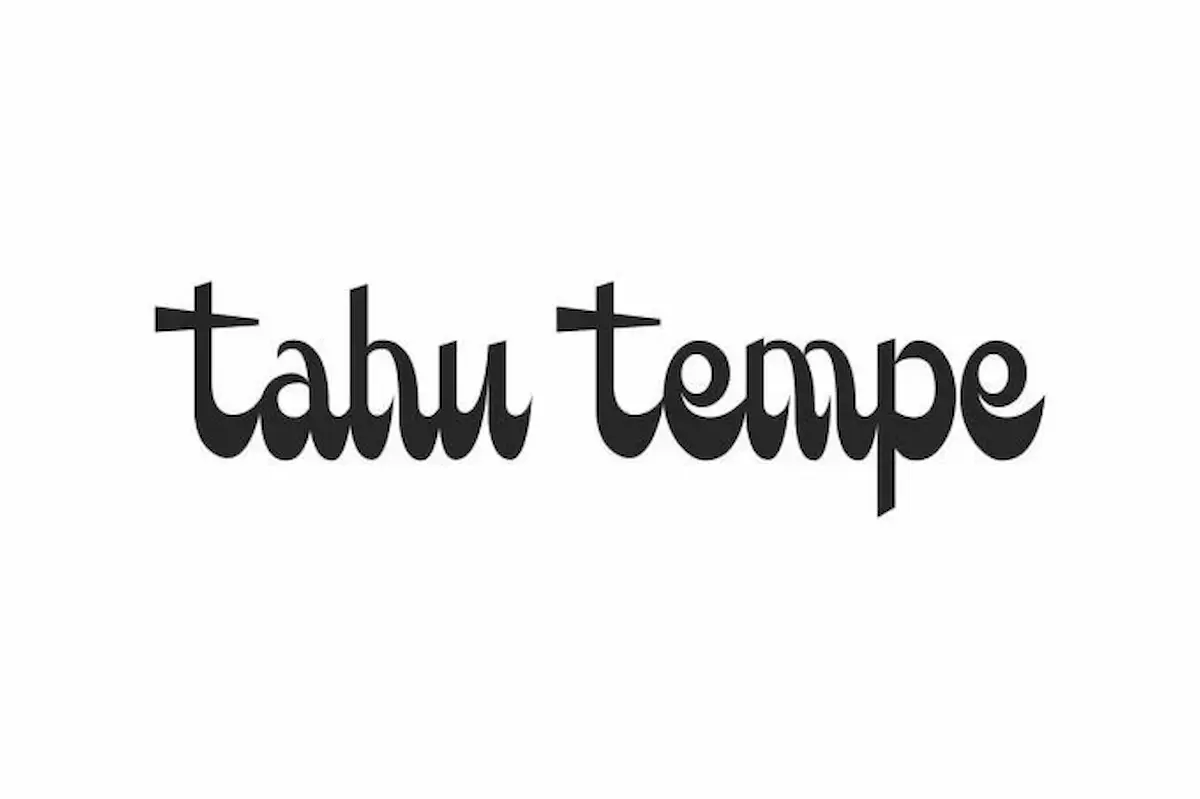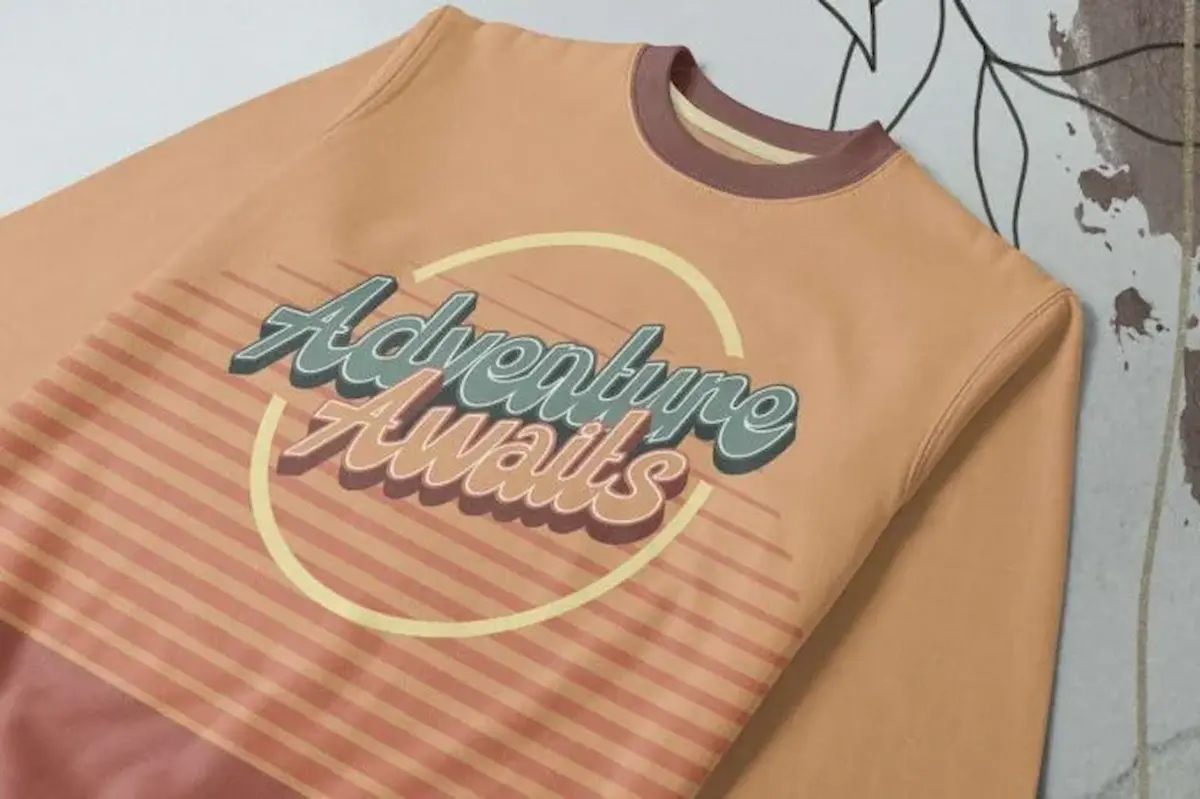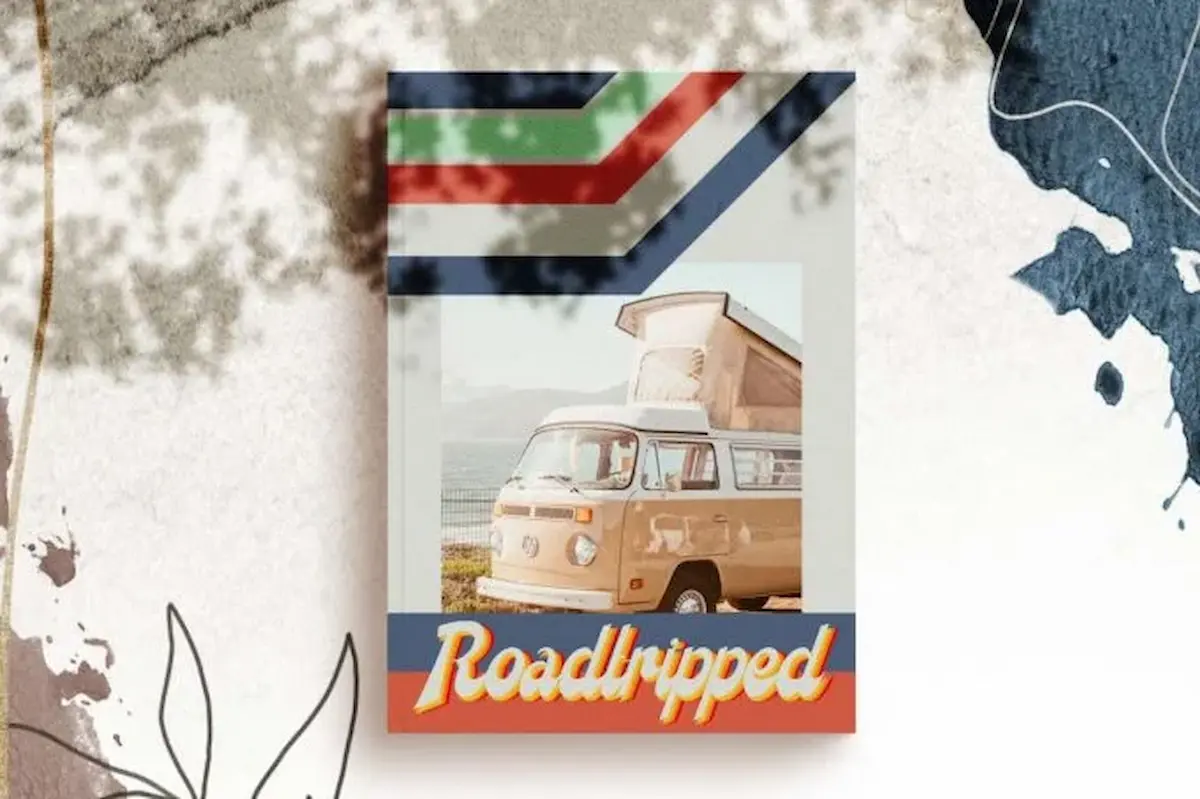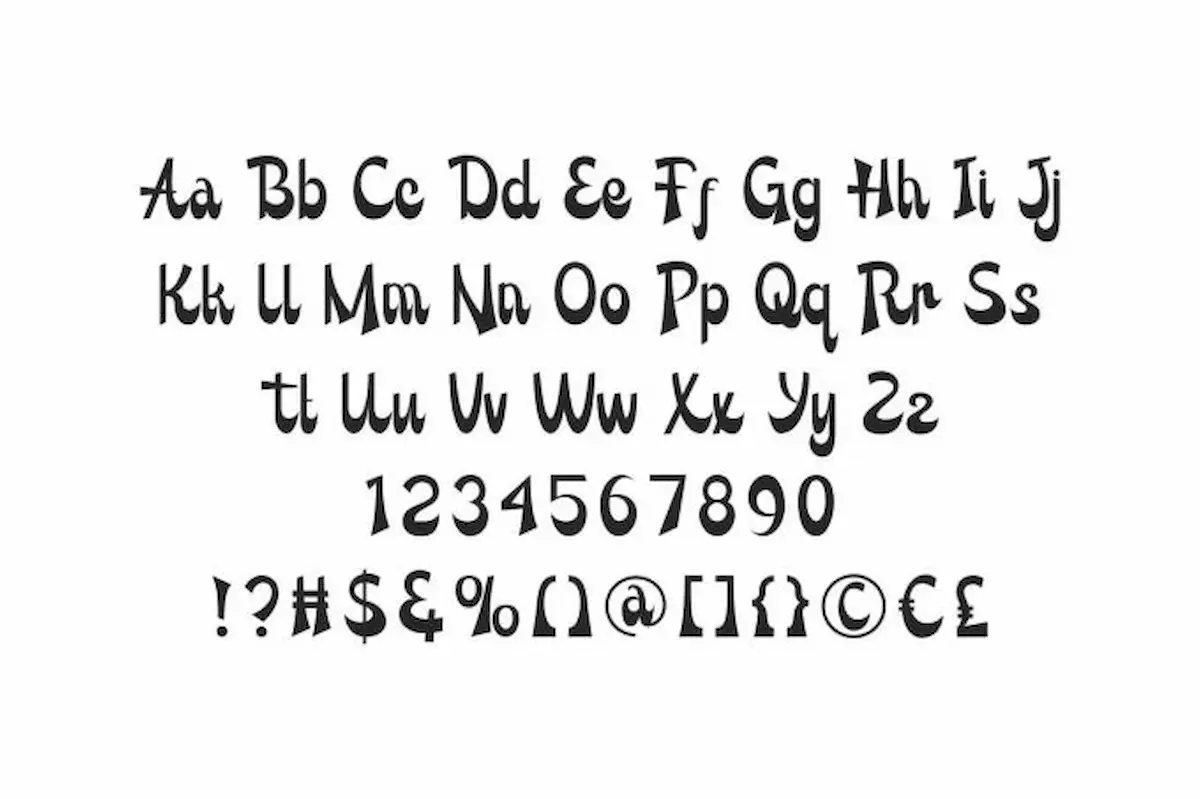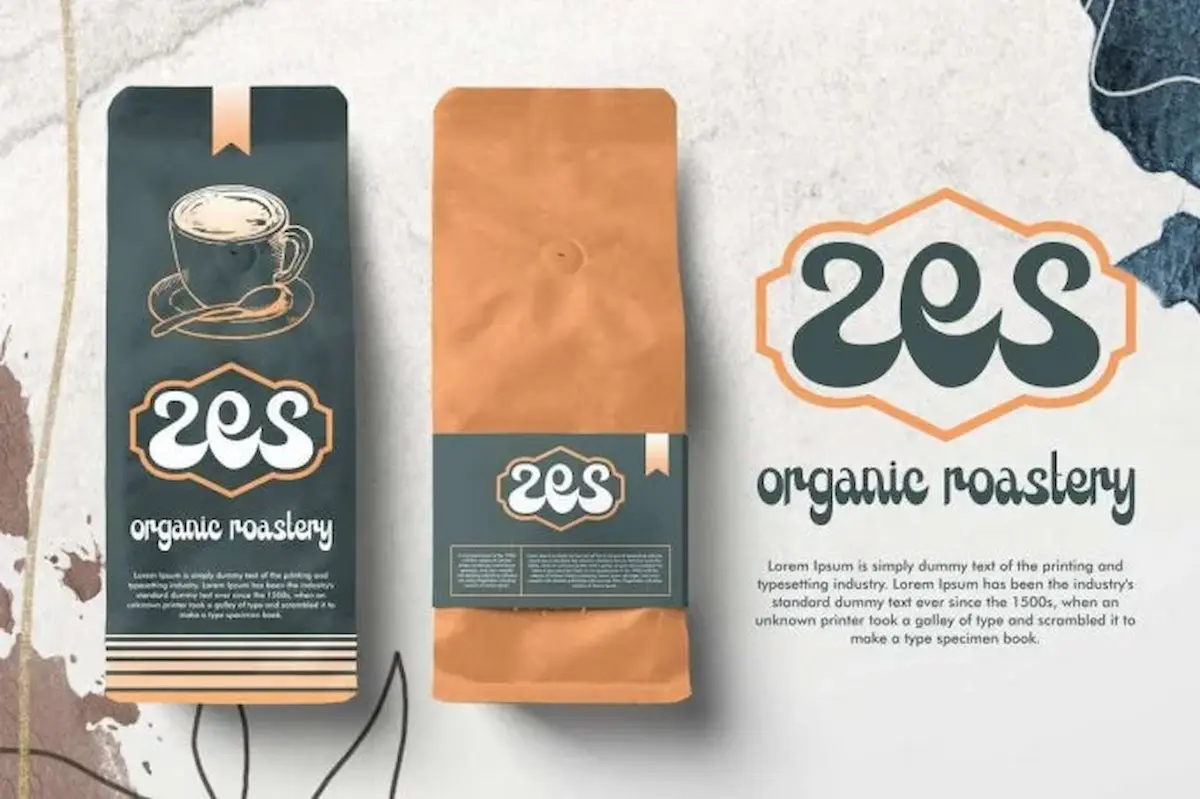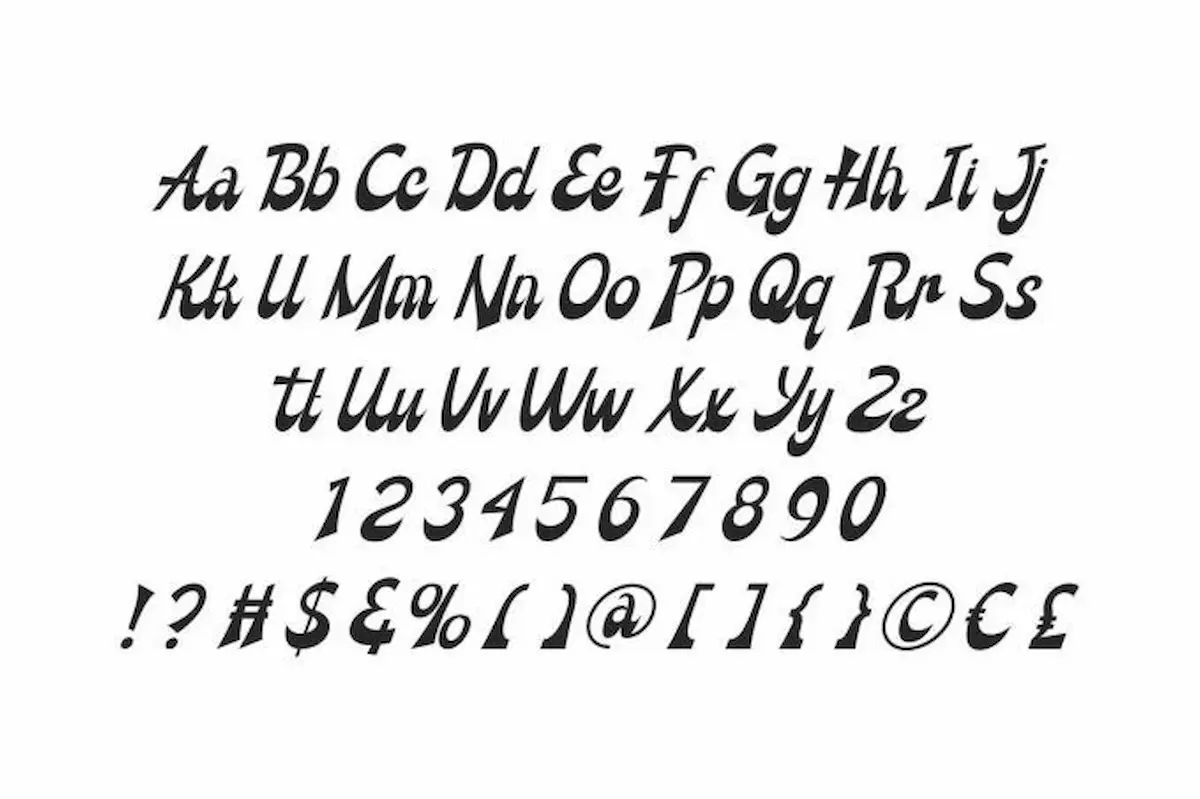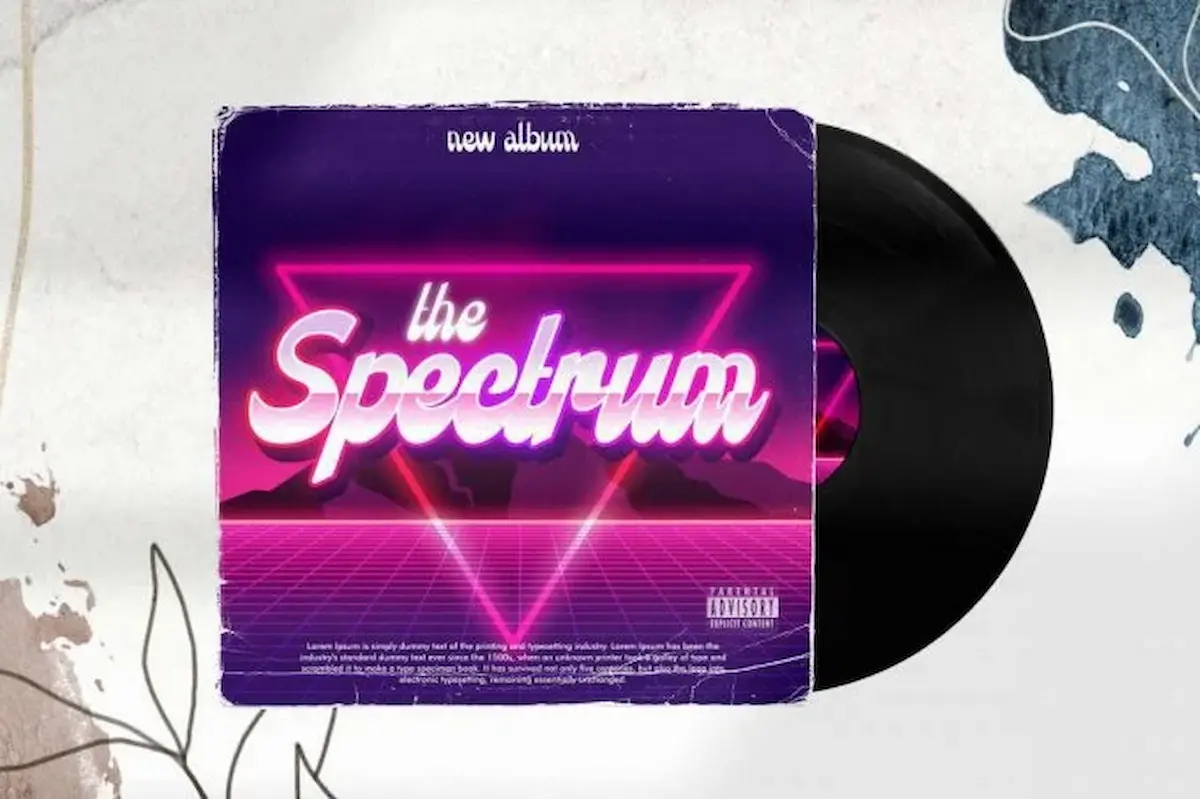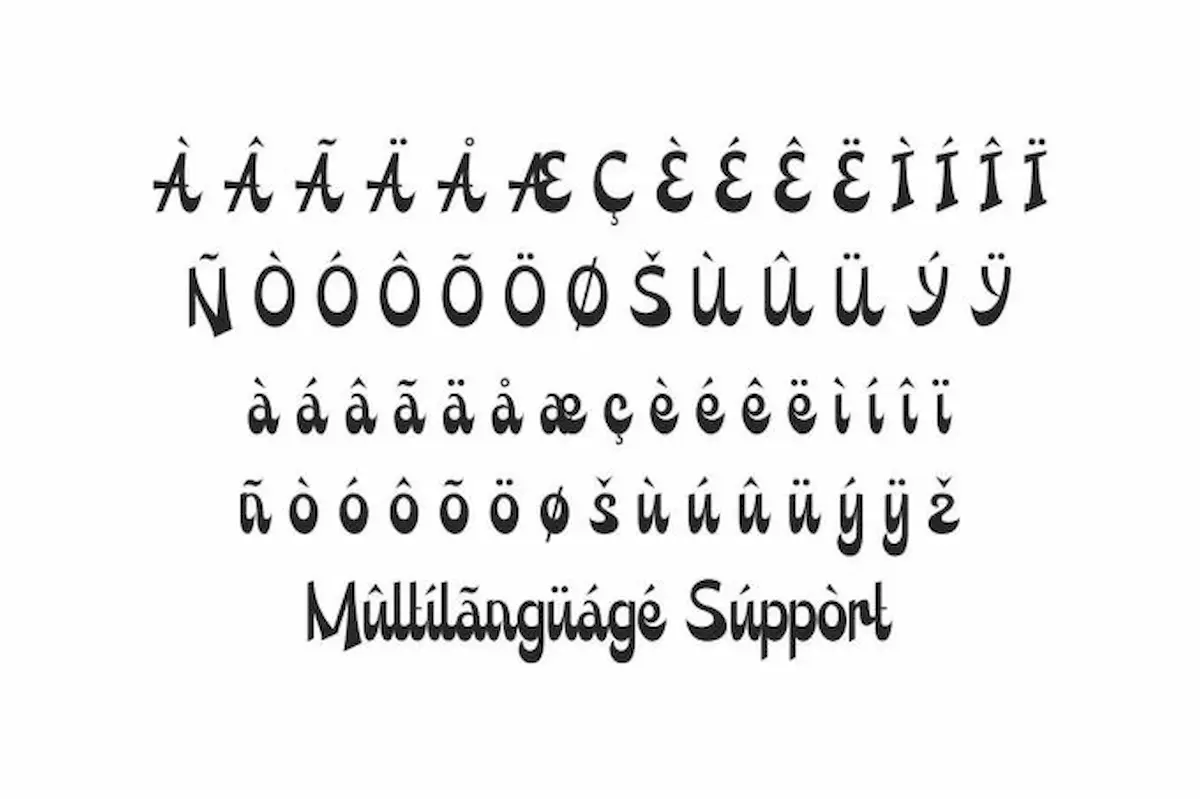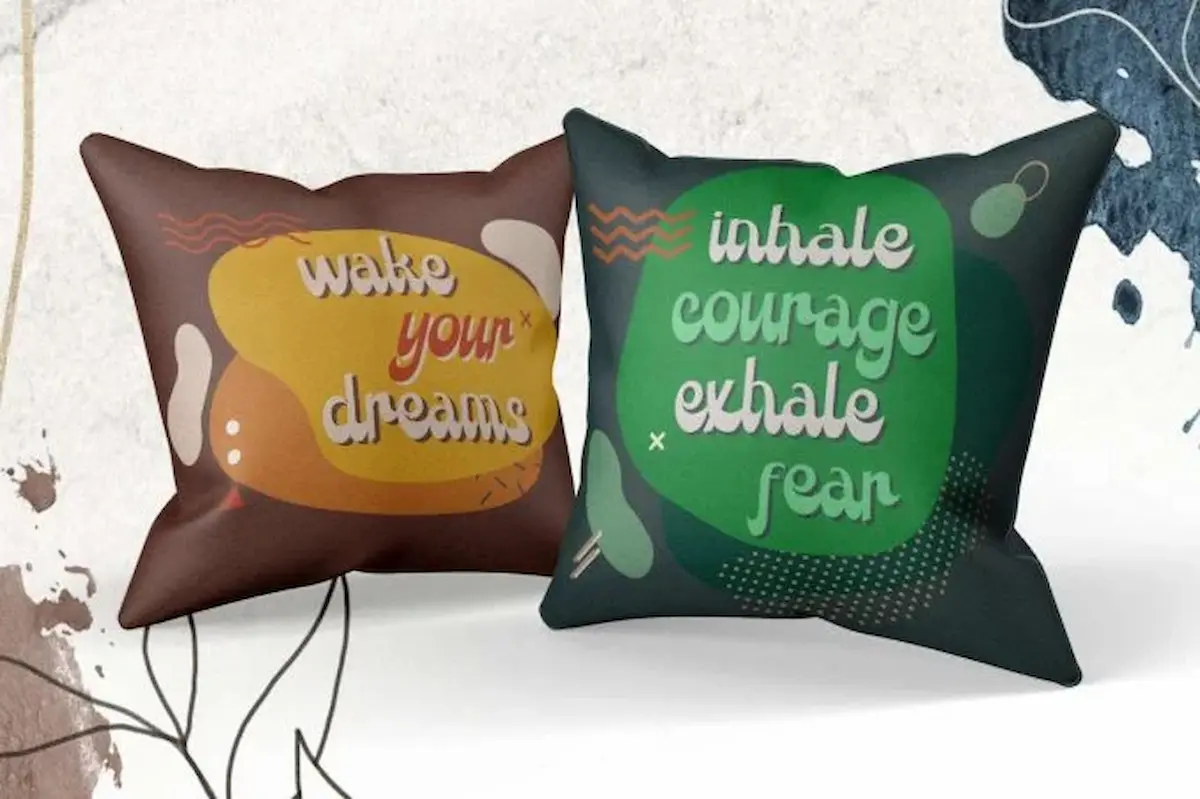
Tahu Tempe Font is a retro display font with a bold twist edges inspired by the vintage charm of the 60’s and 70’s. This font is perfect for all of your craft projects, design product, posters, quotes and more!
Tahu Tempe Font is a unique and groovy retro display font. It embodies freshness and creating a retro feel that is packaged more modern. This font is perfect choice for holiday activities or music projects. Inspired by the special name has a simple impression and retro typography that was famous in the late 60’s to 70’s. This will suit many categories: Wedding, Events, Cosmetic, Homeware, Florist, Cafe/Restaurant and many more.
Tahu Tempe Font is available in two styles: Regular and Italic. It’s PUA encoded, tested Works on PC & Mac. This typeface come with Uppercase and lowercase letters, Number, Punctuation plus supports multilingual languages. It can be used for many cases logos, headlines, promotions, flyer, posters, titles and many more